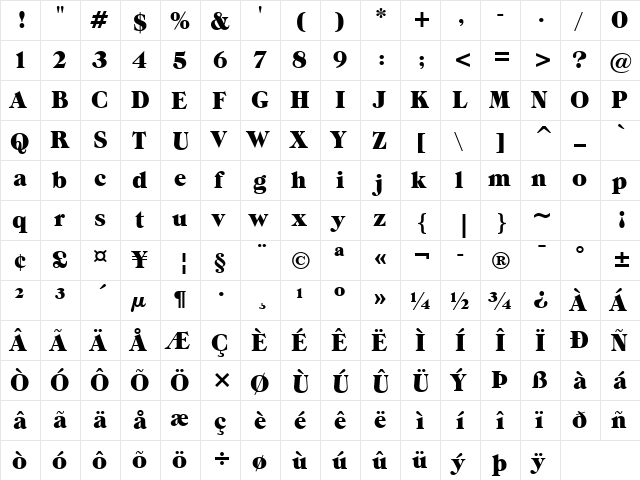
Grouch BT Regular
Design Context for Grouch BT Typeface
Grouch BT offers clean, dependable letterforms without strong stylistic allegiance, making it a practical choice for designers who need flexibility.